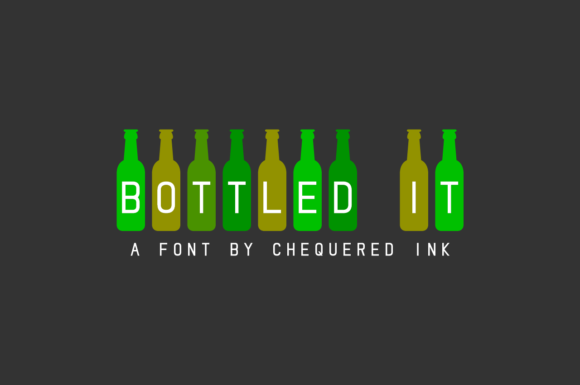
The Ultimate Bottle-Based Font for Your Creative Projects
What Makes Bottled It Font So Special?
The Bottled It Font is a versatile, bottle-based font that allows you to create your own promotional images for beer, wine, cola, lemonade, or any other drink you can think of. It’s perfect for New Year’s and birthday cards, and its uses extend far beyond just drink-related projects. With this font, your creativity knows no bounds.
• ✨ Unique and quirky design: The Bottled It Font is unlike any other font I’ve come across. Its bottle-based design adds a touch of whimsy to any project.
• ✅ Easily customizable: With OpenType features and glyphs, you can customize the font to fit your project’s needs.
• 💡 Inspires creativity: The font’s unique design encourages you to think outside the box and come up with innovative ideas.
While the Bottled It Font is an excellent addition to any design project, there are a few things to keep in mind:
• 🤔 Some characters may require manual adjustment: Due to the font’s unique design, some characters may need manual adjustment to ensure proper spacing and alignment.
• ⚠️ Not suitable for body text: The Bottled It Font is best used for headlines or titles, as it may be difficult to read in large blocks of text.
The Story Behind Bottled It Font
The Bottled It Font was designed by a team of creatives who wanted to create a unique and versatile font for designers, crafters, and hobbyists. Inspired by the world of drinks and bottles, the font was crafted to be both fun and functional.